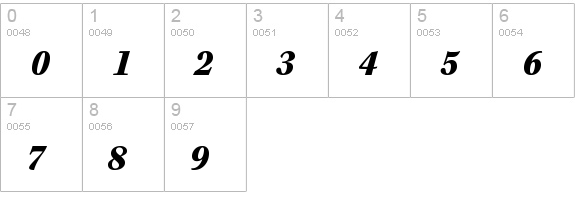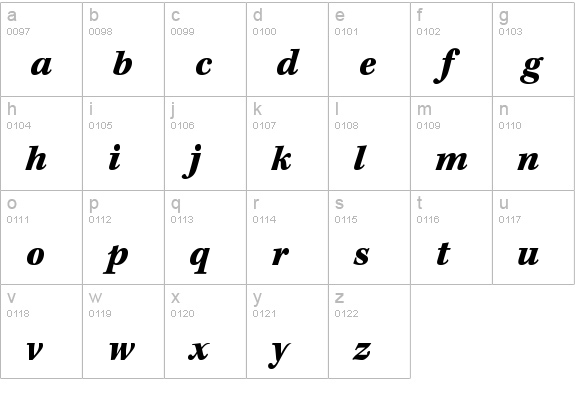
Kepler Std Black Semicondensed Italic Caption Font Details
Kepler Std Black Semicondensed Italic Caption is a maximum-weight, dramatic, italic variant in the Kepler typeface family \xE2\x80\x94 well suited to maximum-impact headlines, posters, and packaging.
Kepler Std Black Semicondensed Italic Caption font is a bold and dynamic typeface that exudes elegance and sophistication. Its condensed and italicized form adds a touch of flair and modernity to any design project. This font is perfect for creating eye-catching captions, headlines, and titles that demand attention. Its sleek and slender appearance makes it ideal for fitting large amounts of text into limited spaces without sacrificing legibility or style. The free availability of Kepler Std Black Semicondensed Italic Caption font makes it even more appealing. Designed to meet the needs of designers and typographers, this font can be freely downloaded at FontsMarket.com. Now, you can effortlessly elevate your designs with this versatile and stylish typeface, without any cost or hassle. With its striking aesthetics and easy accessibility, Kepler Std Black Semicondensed Italic Caption font is a must-have for anyone looking to make a bold statement with their typography. Whether you're designing a logo, creating a poster, or crafting a website layout, this font will add a touch of sophistication and professionalism to your project. So don't miss out on this incredible opportunity to enhance your designs for free – visit FontsMarket.com today and download Kepler Std Black Semicondensed Italic Caption font.